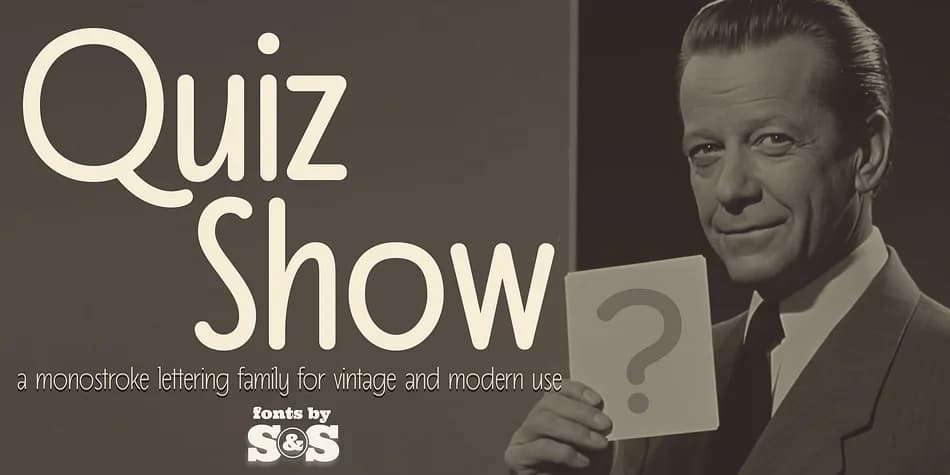
Imagine designing a luxury wedding invitation suite or laying out a high-end magazine masthead. Quiz Show, designed by Stiggy & Sands, brings that refined hand-lettered sensibility with understated art deco elements in every character. Its tall x-height makes it warm and accessible, yet the SmallCaps and extensive figure sets add the formality needed for upscale packaging, formal restaurant menus, and refined business stationery where every detail signals quality.
What gives Quiz Show its range is how it performs at different sizes. Blown up on an invitation header or magazine cover, those elegant strokes command attention and feel substantial. Scaled down for smaller design elements, the proportions stay legible without becoming cramped or losing their character. The stylistic alternates and ligatures handle the nuanced touches that distinguish hand-crafted work from generic typography. Figure support includes tabular, proportional, and oldstyle sets, giving you the flexibility to handle layouts where numerals need to align precisely or flow naturally in continuous text.
The font spans from a needle-thin Light to a substantial Bold, offering weight variation for layering and creating visual contrast in your designs. Find Quiz Show on Creative Fabrica and bring that sophisticated vintage sensibility to your next project.
Quiz Show Font is a decorative font that shines as a display or heading face. Pair it with a clean sans-serif or serif font for body text β the contrast creates a clear hierarchy while the two styles stay balanced and easy to read.